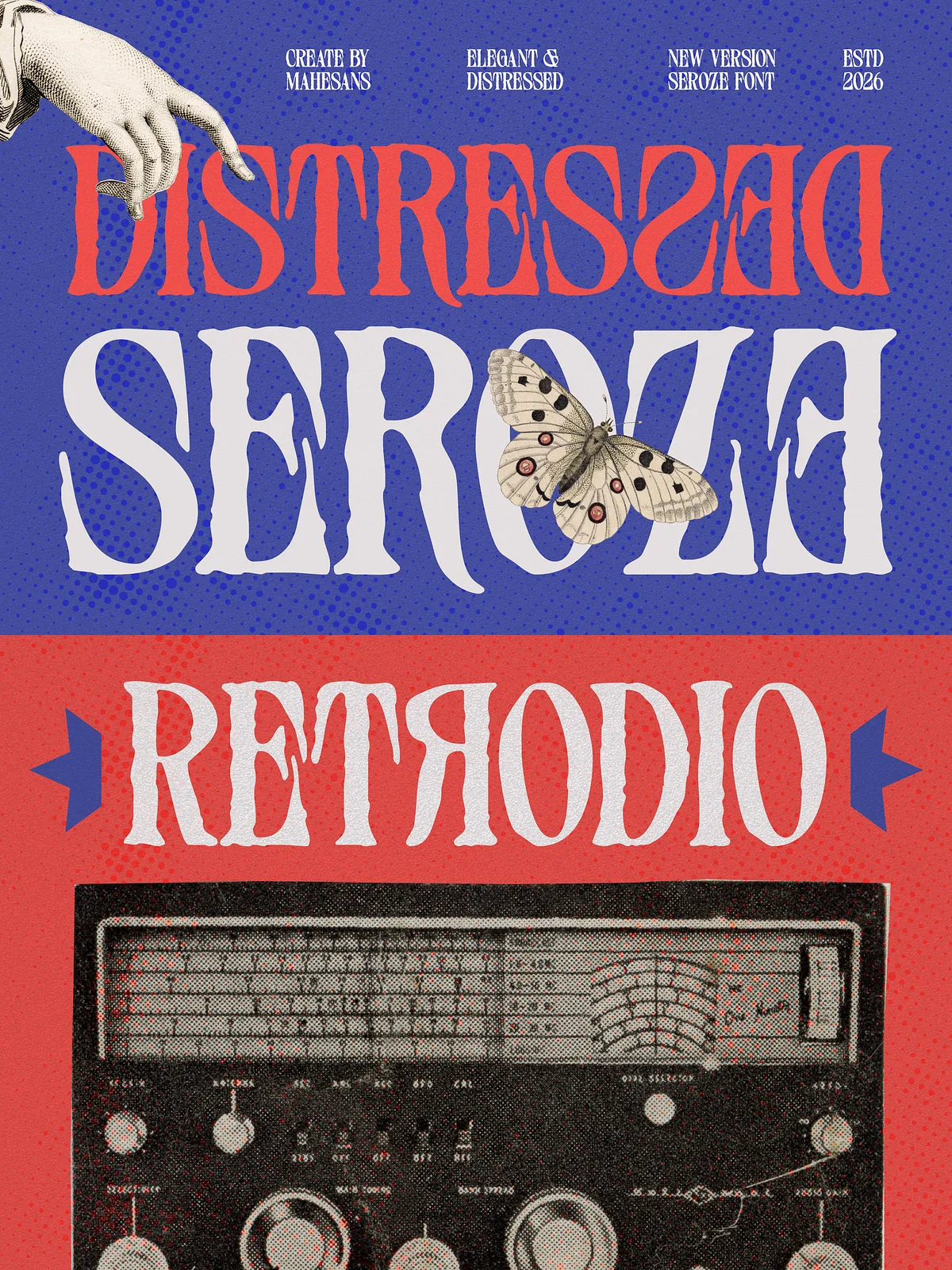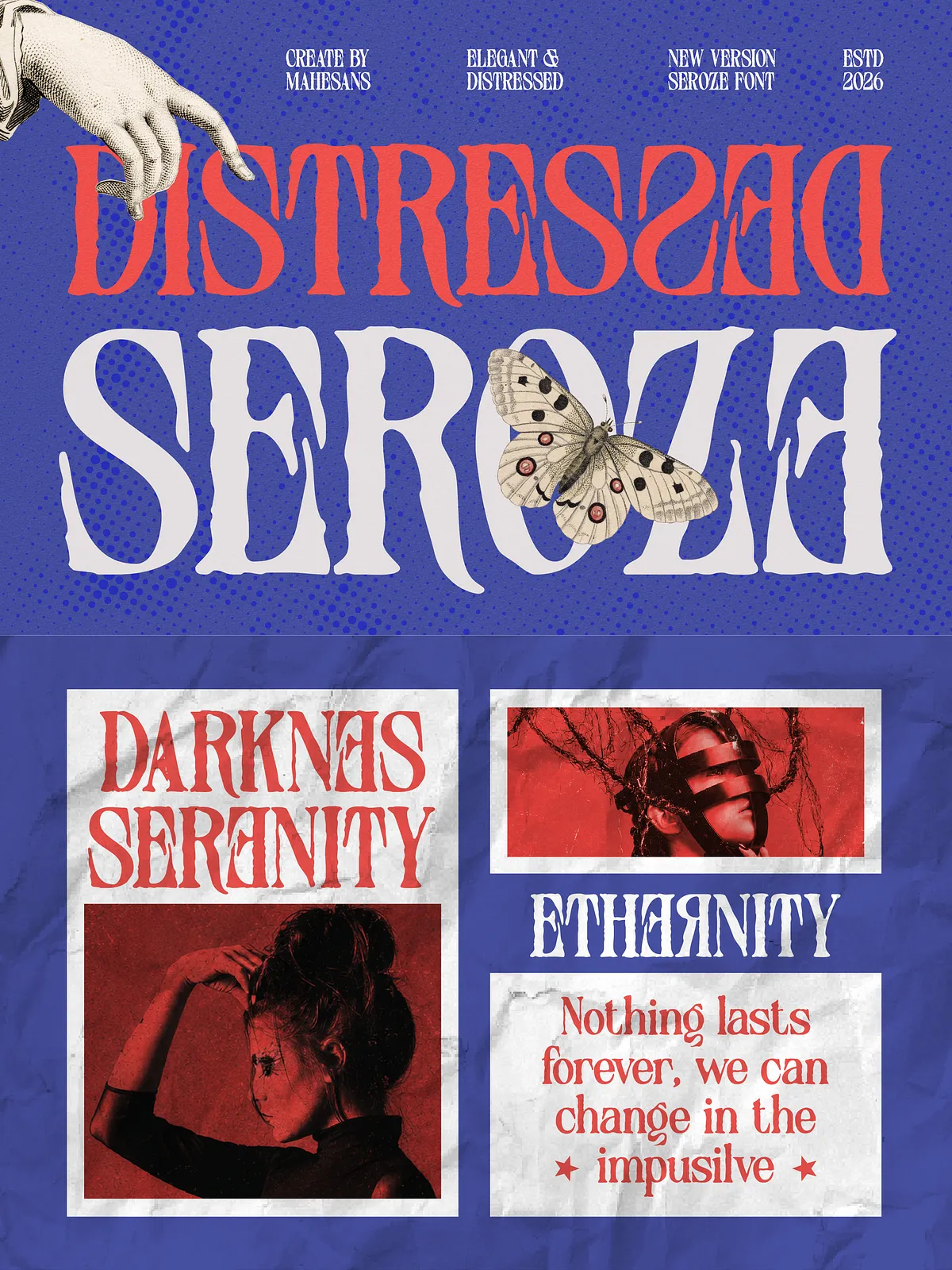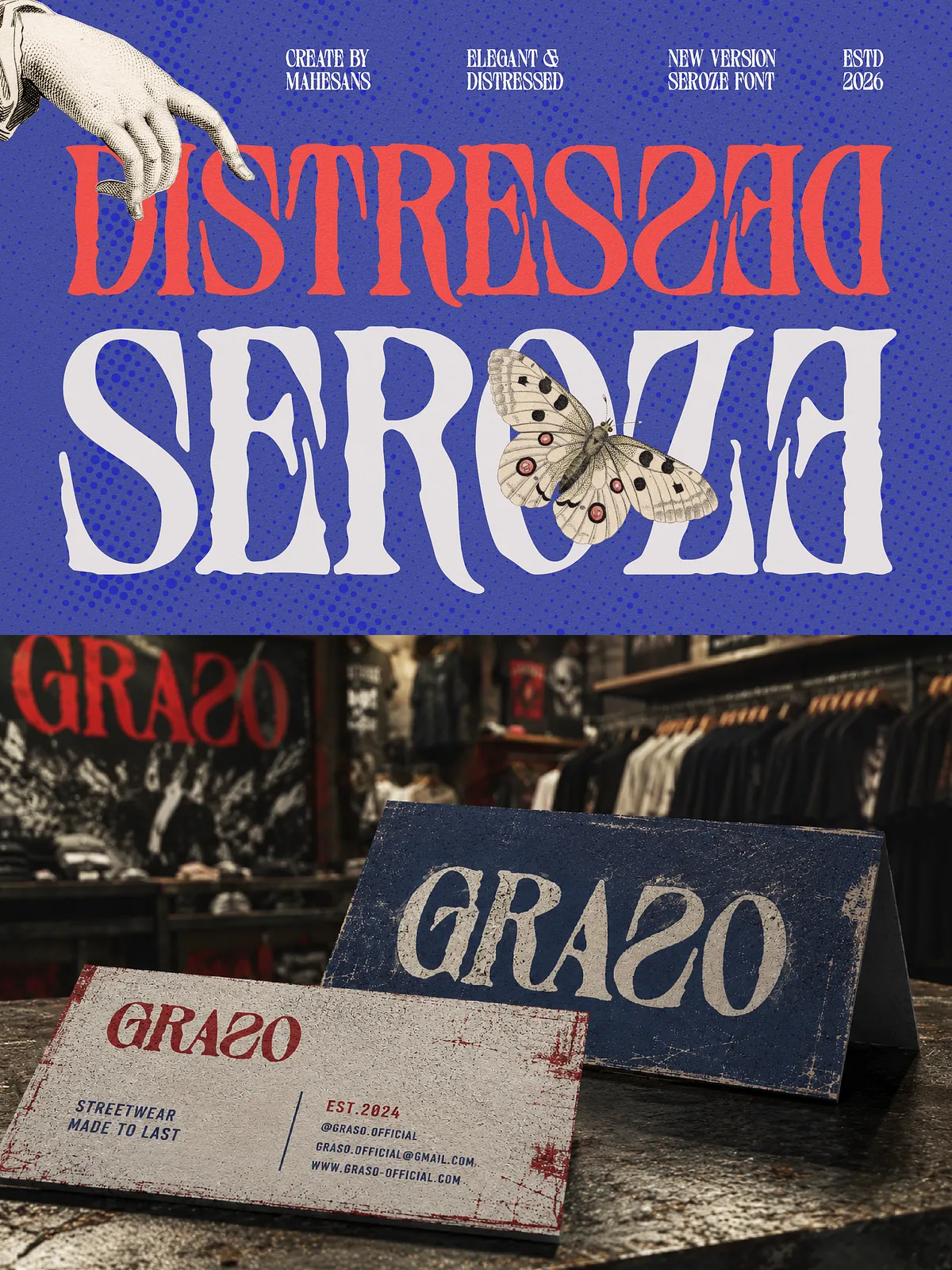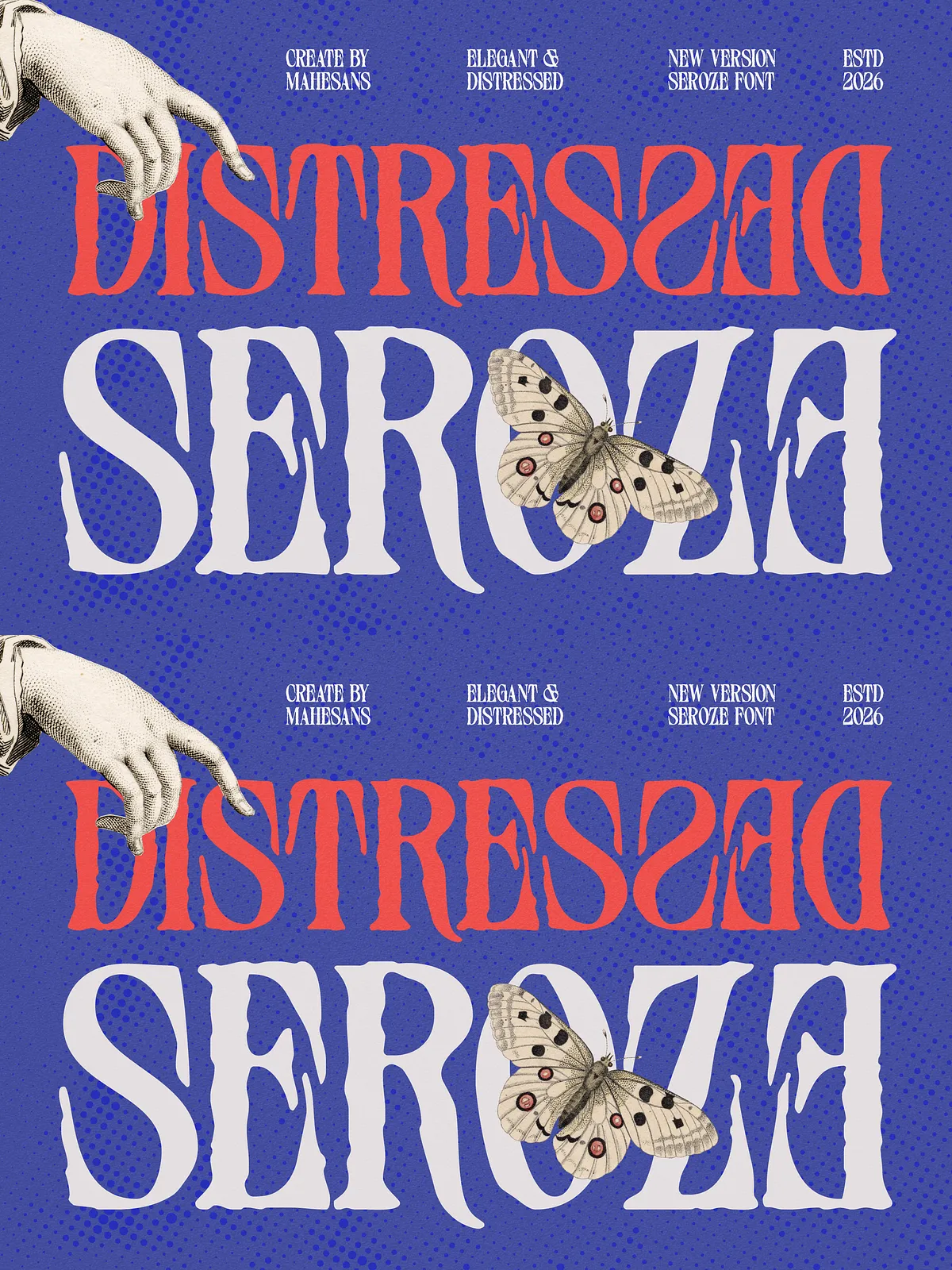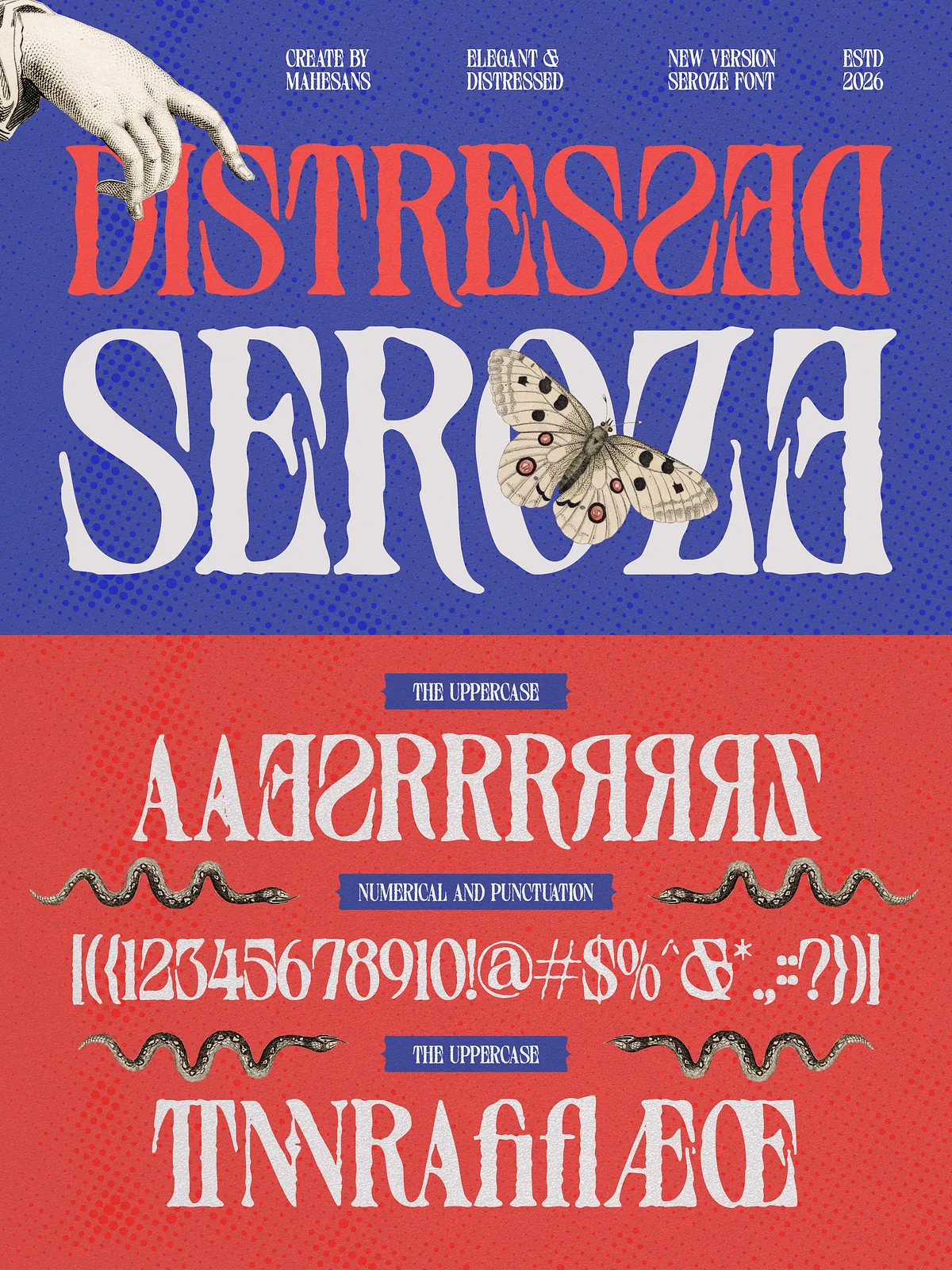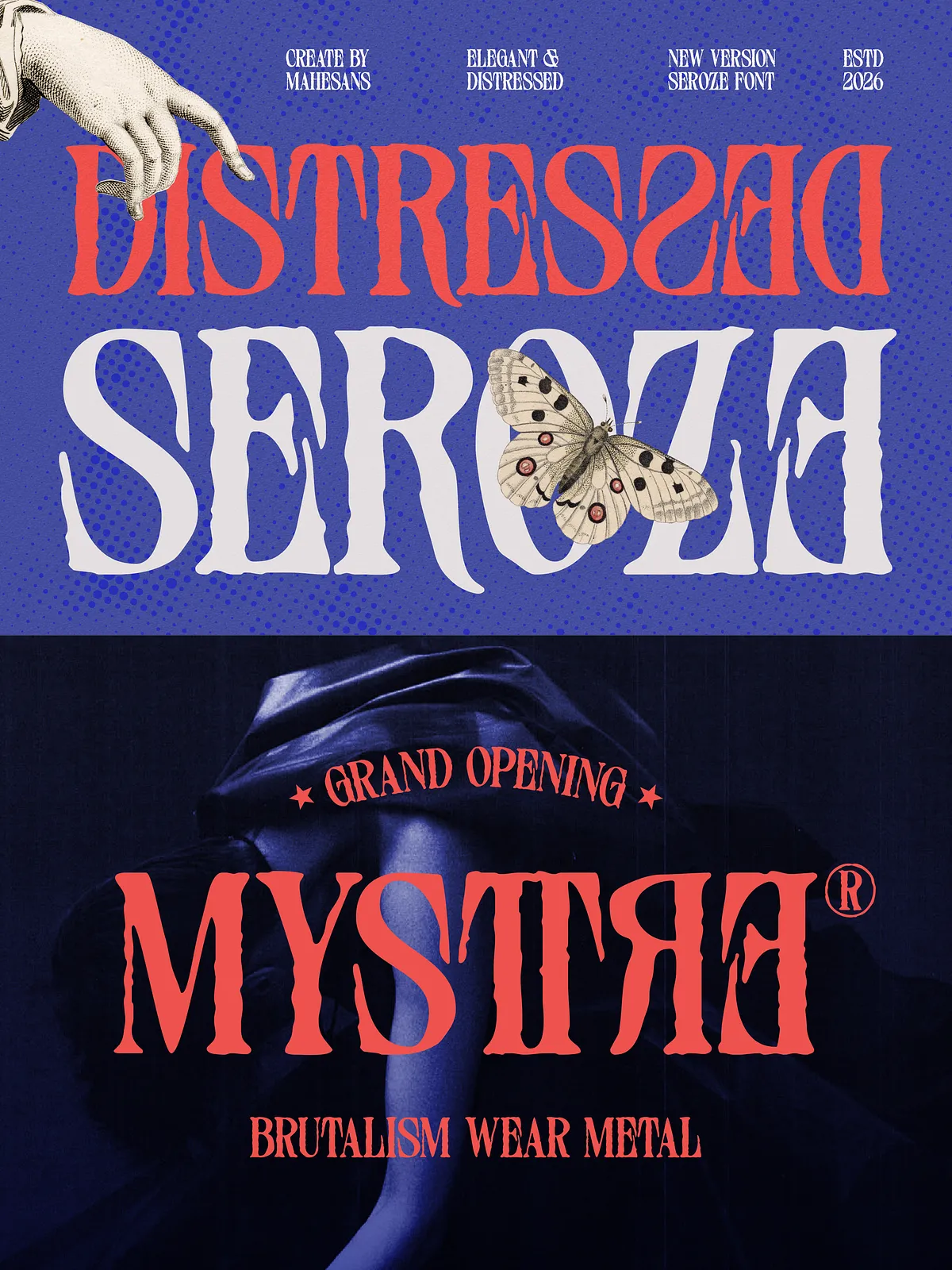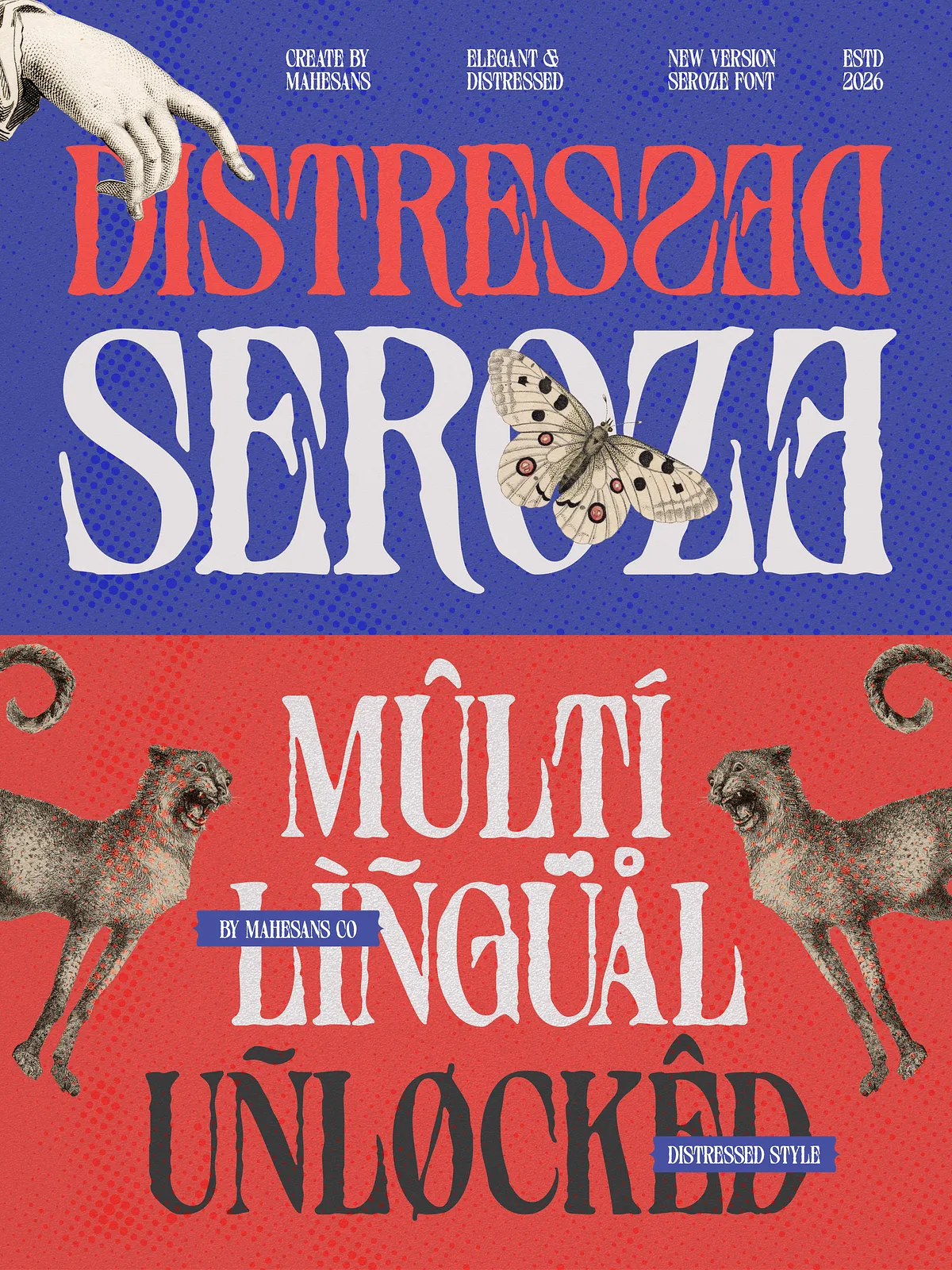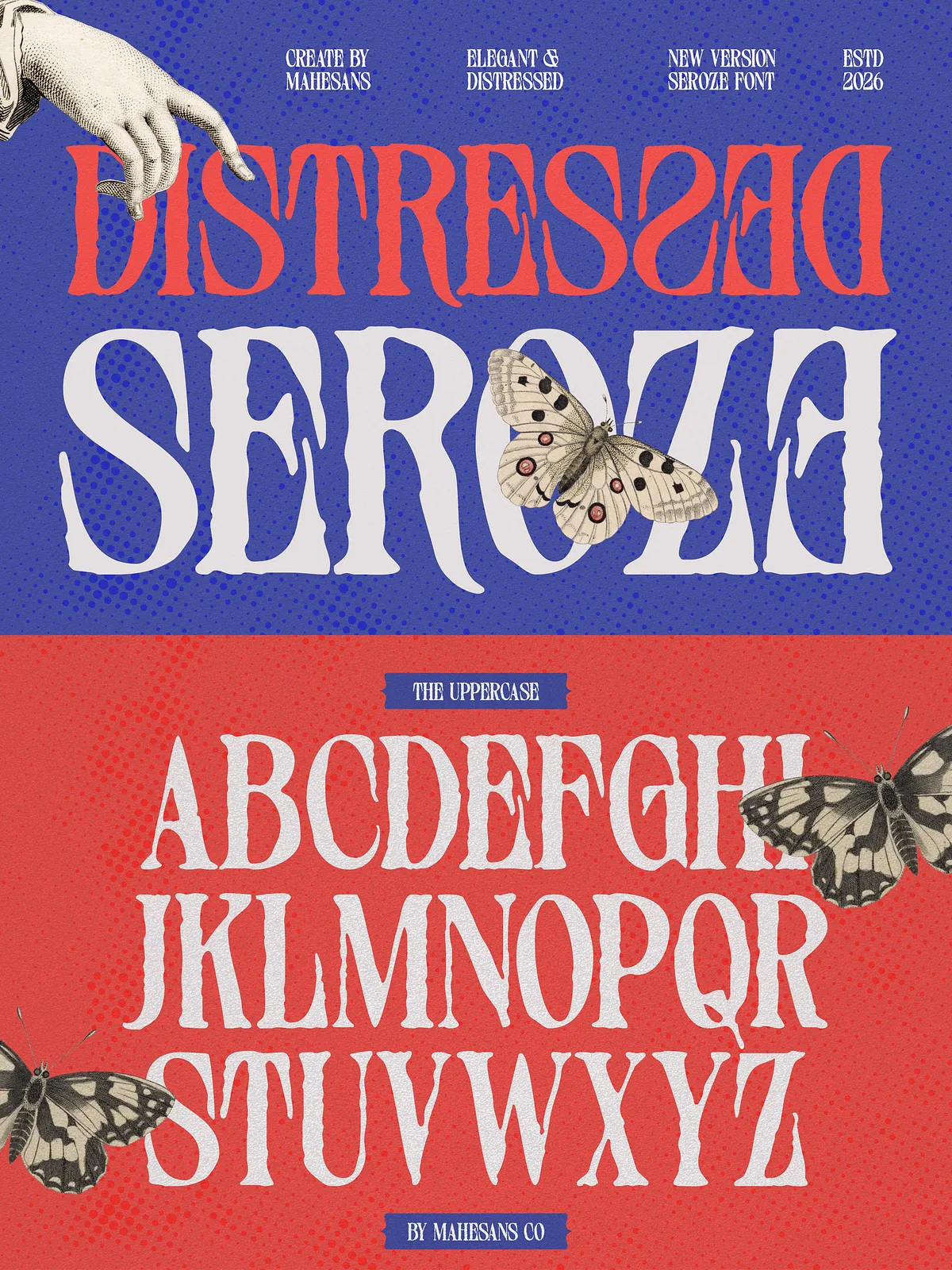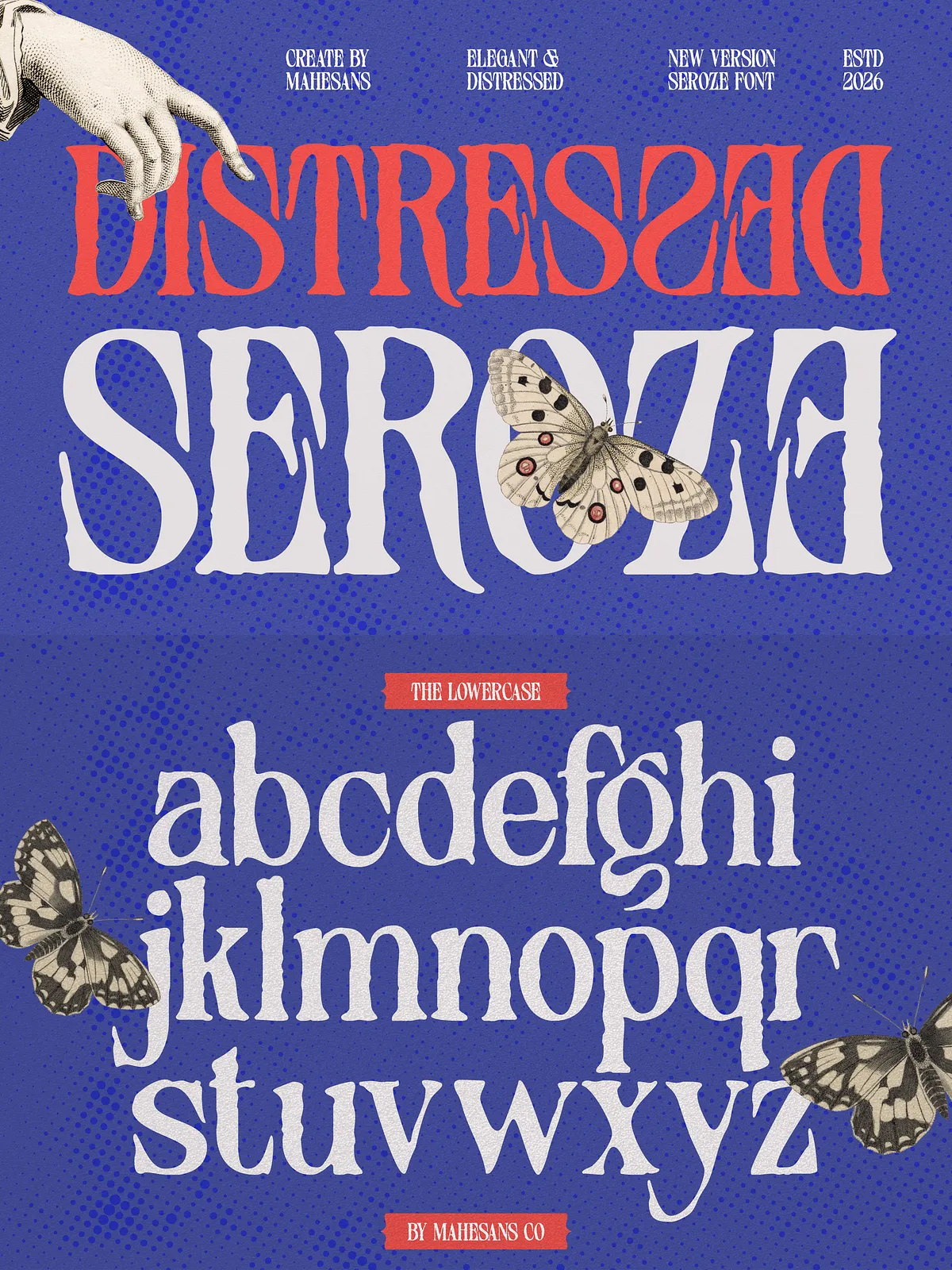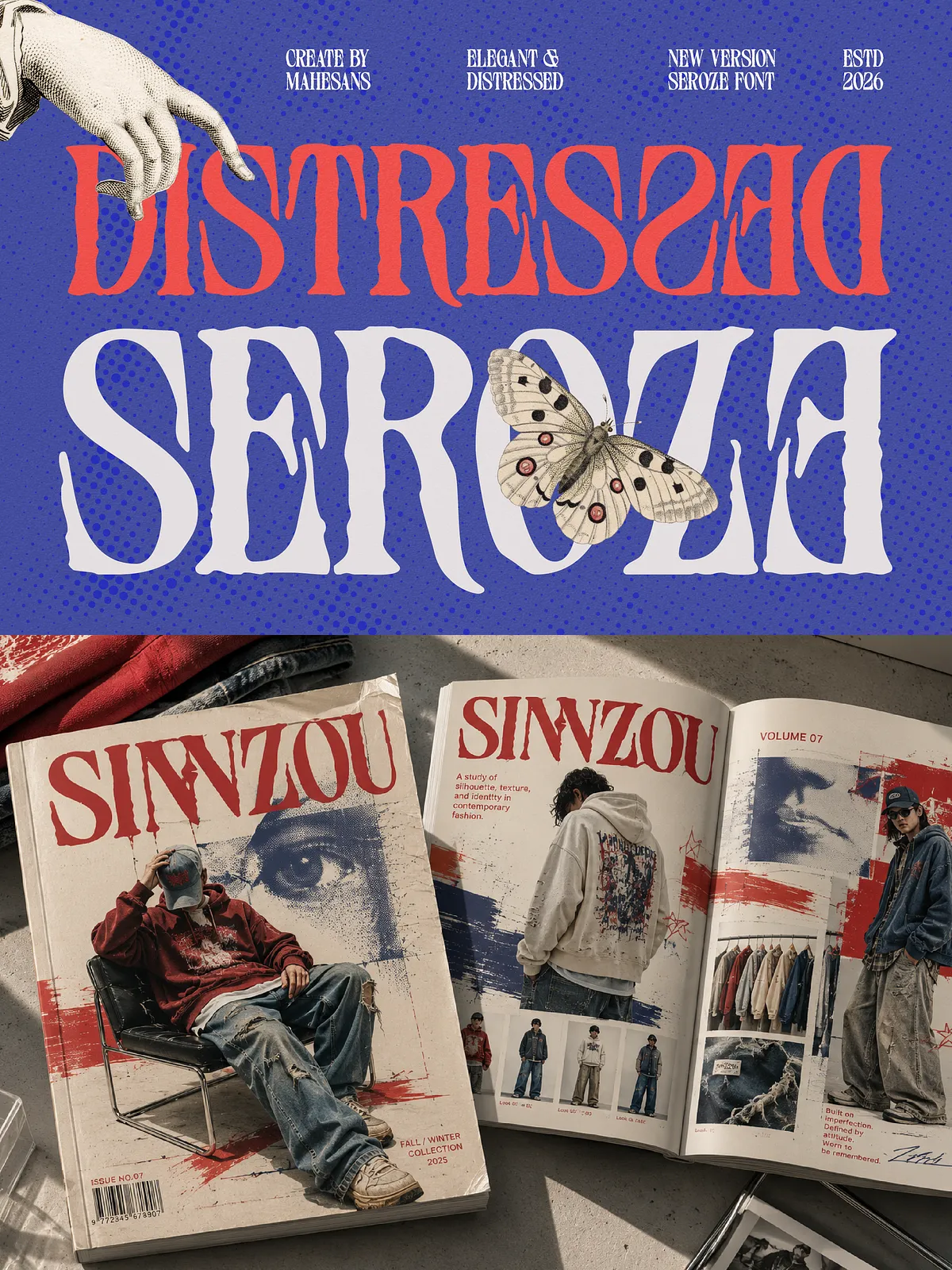
Distressed Seroze – Elegant Serif
Seroze injects refined personality into designs by combining classic serif forms with organic distressed textures. Crafted to read clearly while displaying handcrafted imperfections, Seroze delivers a confident voice that suits luxury and fashion applications as well as bold editorial and packaging work. The typeface balances flowing curves, distinctive terminals, and subtle roughness so your layouts feel expressive without losing legibility.
Design Features
Organic Distress and Authenticity
Seroze uses hand-placed distressing and natural wear to create a lived-in appearance. These imperfections read as deliberate texture rather than noise, giving headlines and logos a tactile, authentic quality. The distressed details add personality while preserving the underlying serif structure.
Elegant Serif Structure
The core letterforms follow classical serif proportions: refined stems, balanced counters, and graceful curves. This foundation ensures that Seroze performs well at display sizes — the elegance of the shapes remains intact even when the distressed overlays are applied.
Expressive Terminals and Ligatures
Seroze includes distinctive terminals and thoughtfully designed ligatures that enhance rhythm and flow in wordmarks and headlines. These features let you craft logotypes and editorial headings that feel bespoke and carefully composed.
Recommended Applications
Fashion & Luxury Branding
Seroze enhances brand identities that require sophistication with an edge. Use it for couture or boutique logos, monograms, and identity systems where a hint of rebellion supports a premium position.
Editorial Design & Magazine Covers
Use Seroze for cover headlines and feature titles to instantly communicate tone: elegant yet uncompromising. Its distressed textures add visual interest while the serif structure preserves readability in large display sizes.
Packaging & Product Design
Seroze performs strongly on packaging — especially for limited editions, premium goods, or retro-inspired products. The font’s tactile distressing complements textured materials like kraft, linen, and coated stocks, reinforcing perceived craft and quality.
Posters, Album Artwork & Social Media
Apply Seroze where a bold visual statement matters: posters, album covers, campaigns, and social graphics. Its combination of classic form and distressed detail delivers immediate presence across both print and digital platforms.
Styling & Pairing Tips
Pair with Clean Sans-Serifs
To highlight Seroze’s decorative attributes, pair it with a neutral sans-serif for body text. The contrast between crisp text and textured display elements maintains readability and accentuates headline personality.
Color, Texture and Background
Let Seroze breathe on subtle backgrounds or tactile paper stocks. Use restrained palettes—muted neutrals, rich jewel tones, or monochrome treatments—to let the distressed detail remain legible and elegant. When placing the font over busy imagery, apply overlays, outlines, or subtle shadows to preserve clarity.